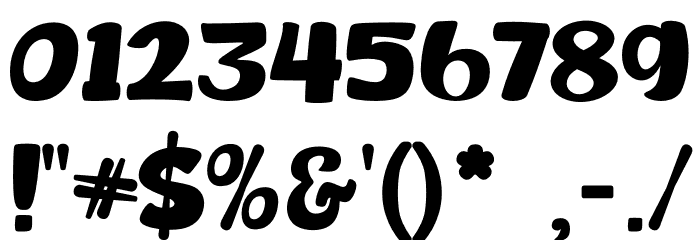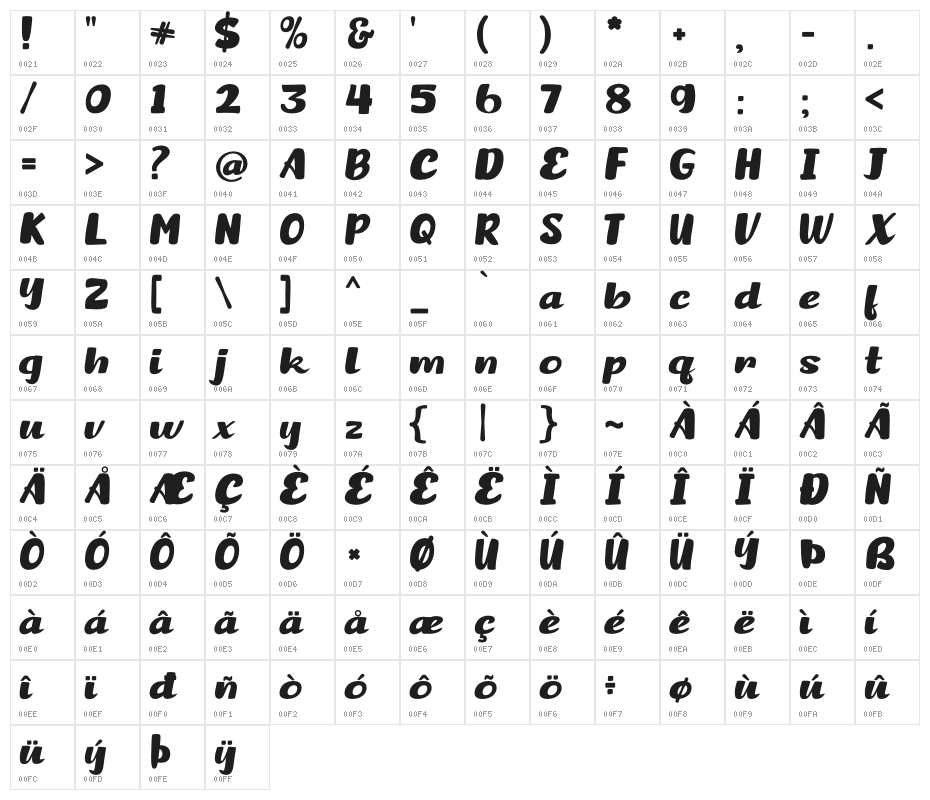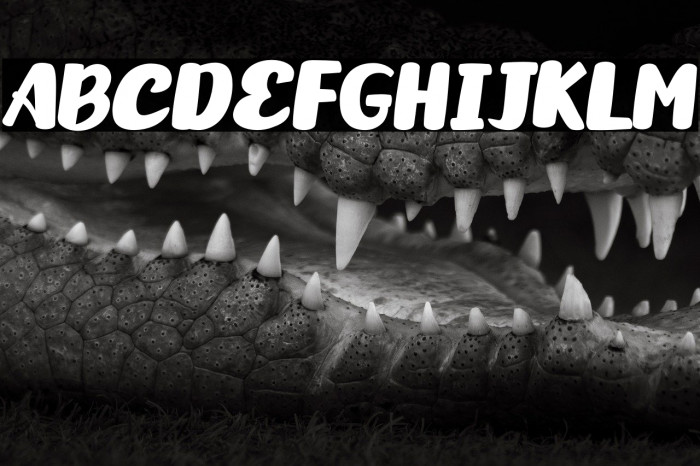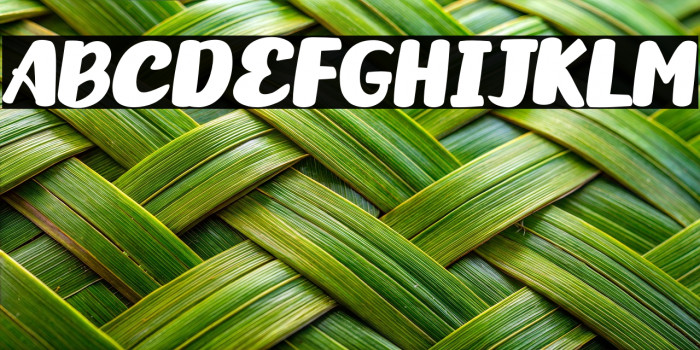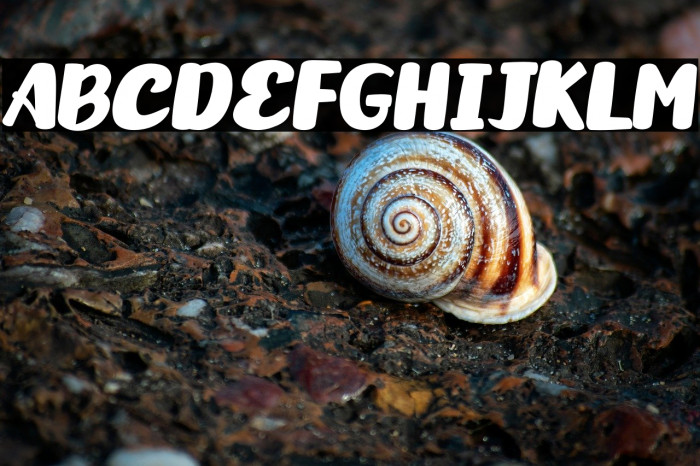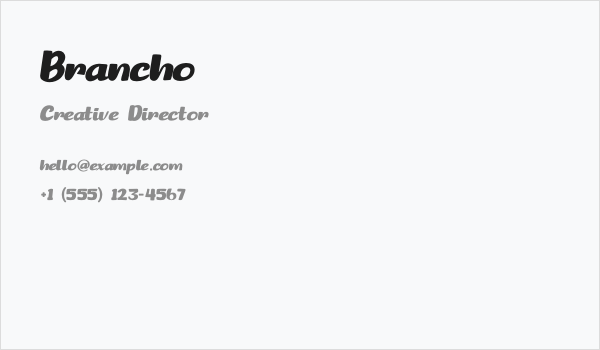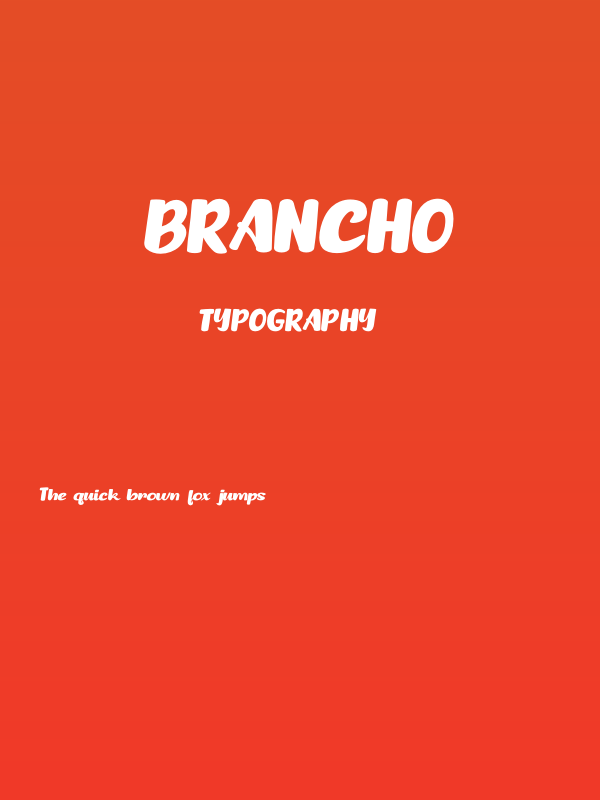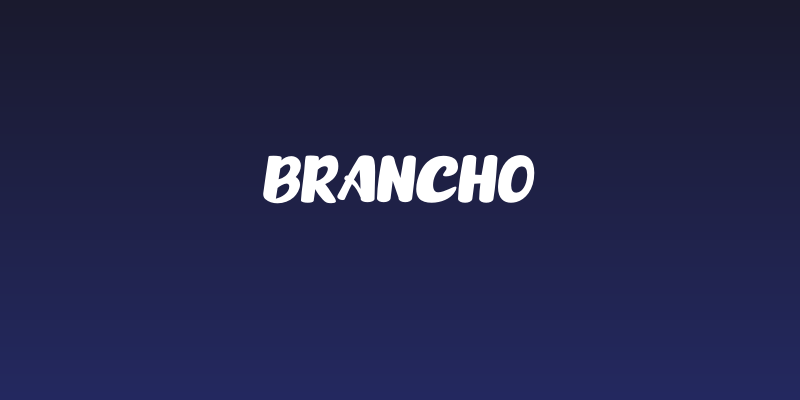
Brancho Font
Brancho Description
This font features a bold and playful script style with a strong presence. The characters are rounded and have a smooth flow, giving a sense of movement and energy. The uppercase letters are slightly larger and more pronounced, while the lowercase letters maintain a consistent and harmonious look. The numbers are equally bold, matching the overall style of the alphabet. Special characters are included, maintaining the same playful and bold aesthetic. The font's design is suitable for creating eye-catching headlines and logos, where a sense of fun and creativity is desired.
| Overall Style | Playful, Energetic |
| Proposed Projects | Ideal for branding, logos, posters, and playful graphic designs. |